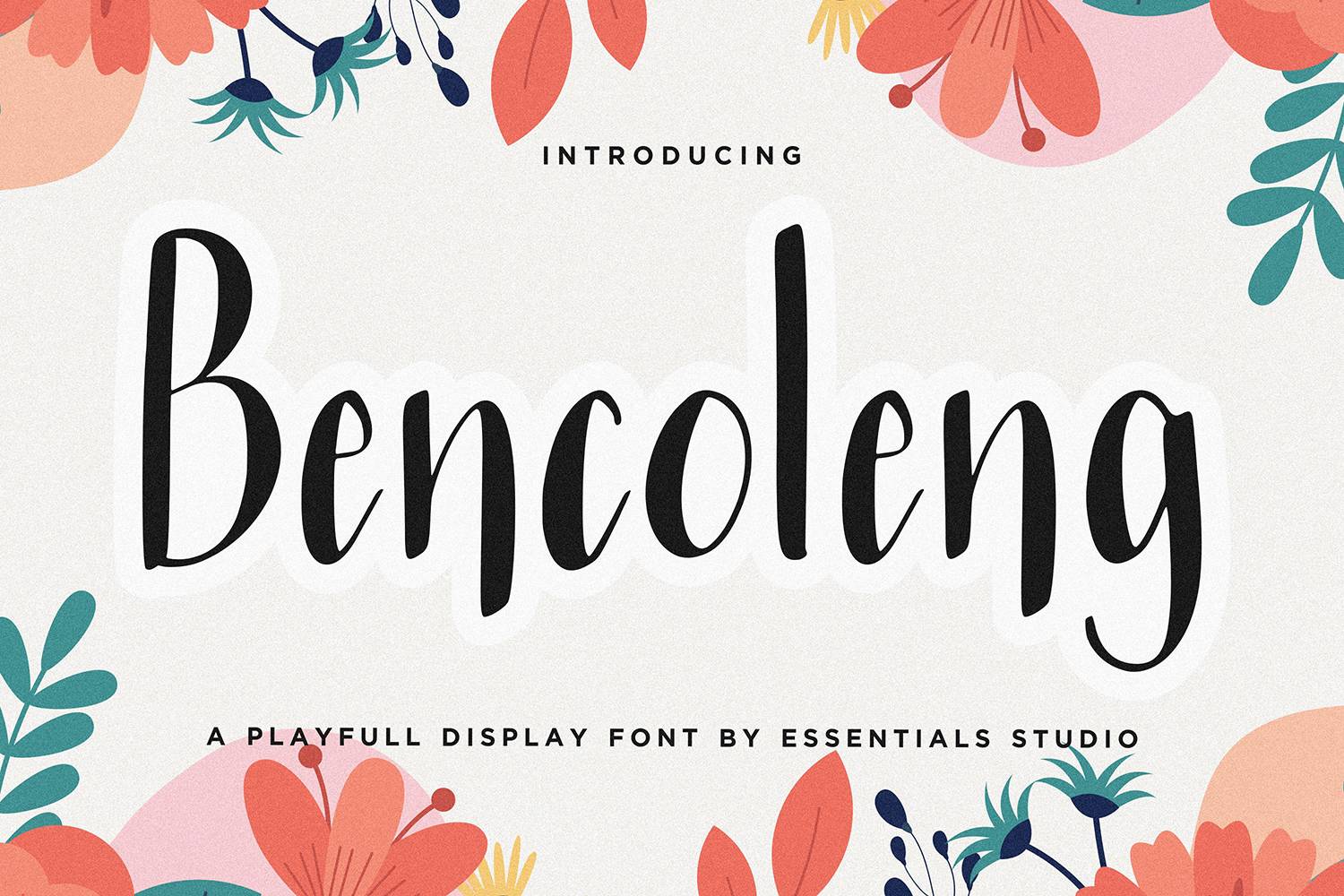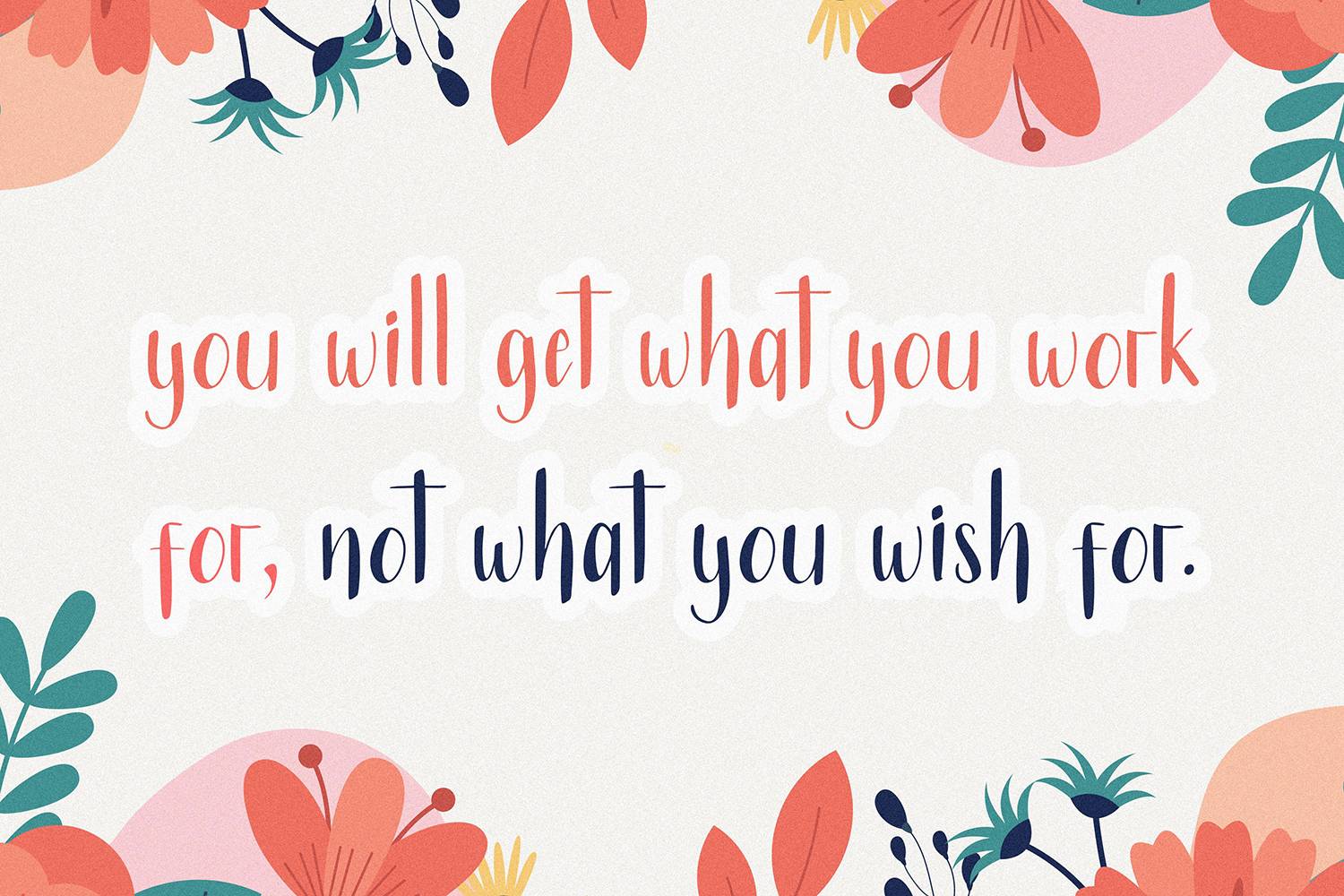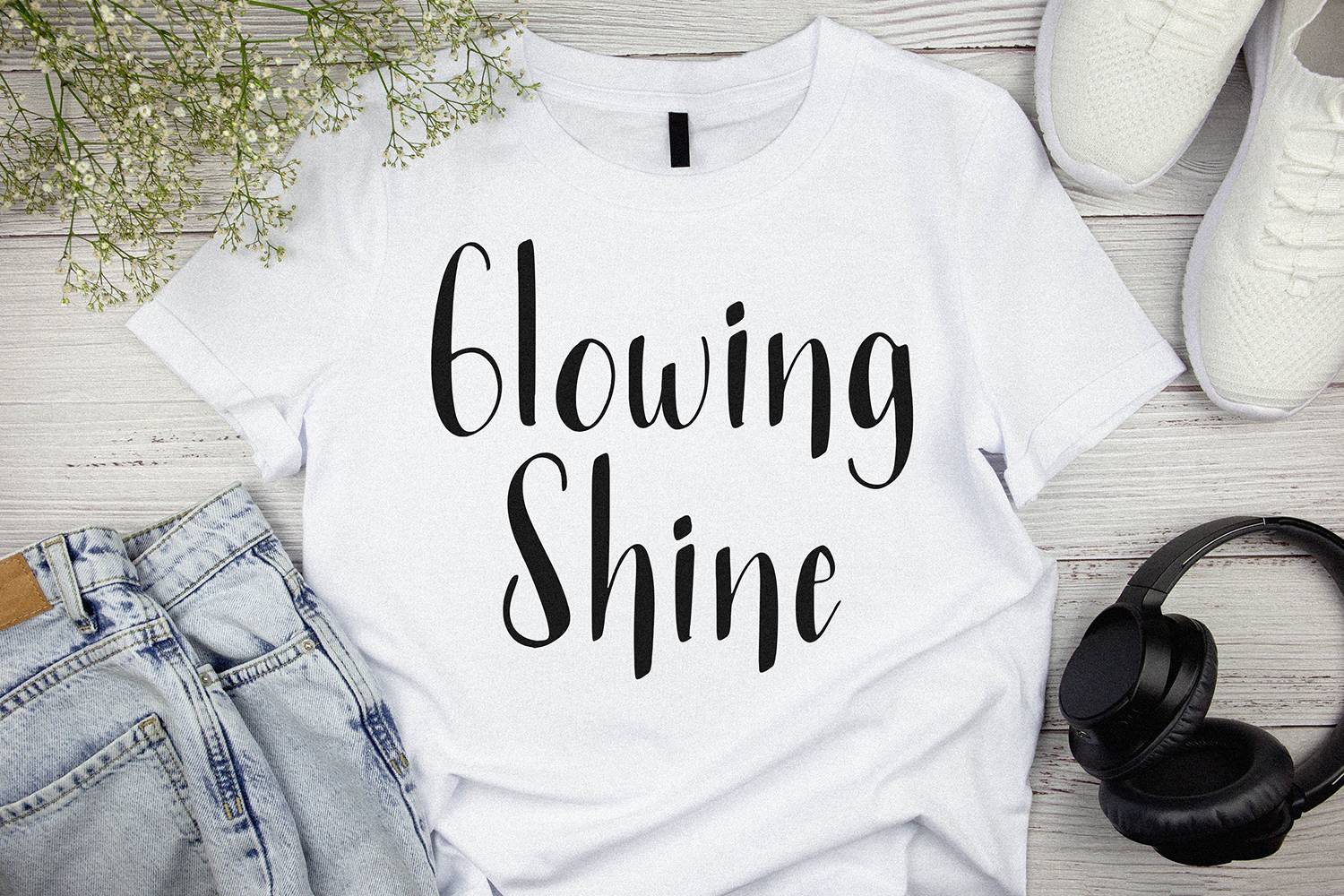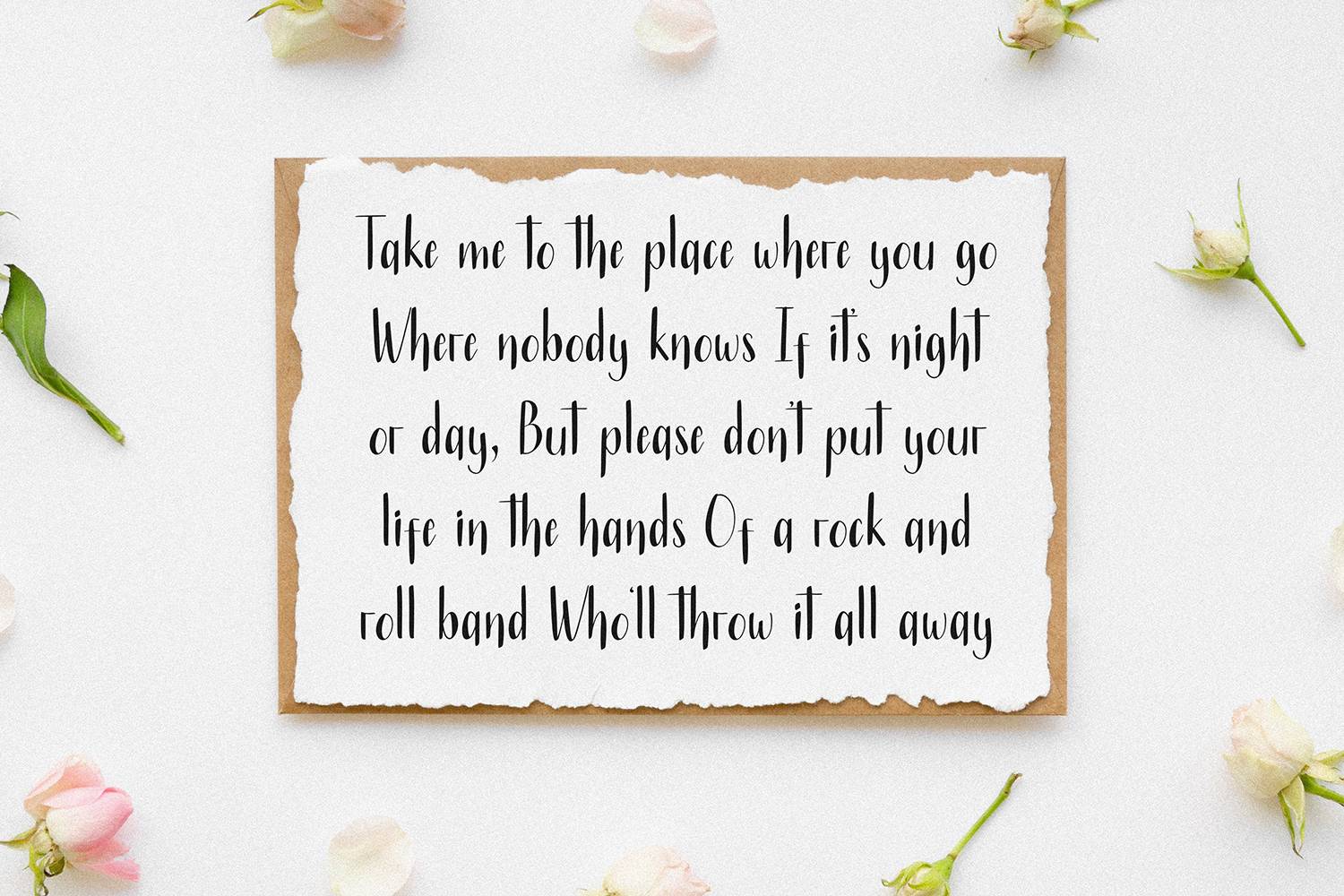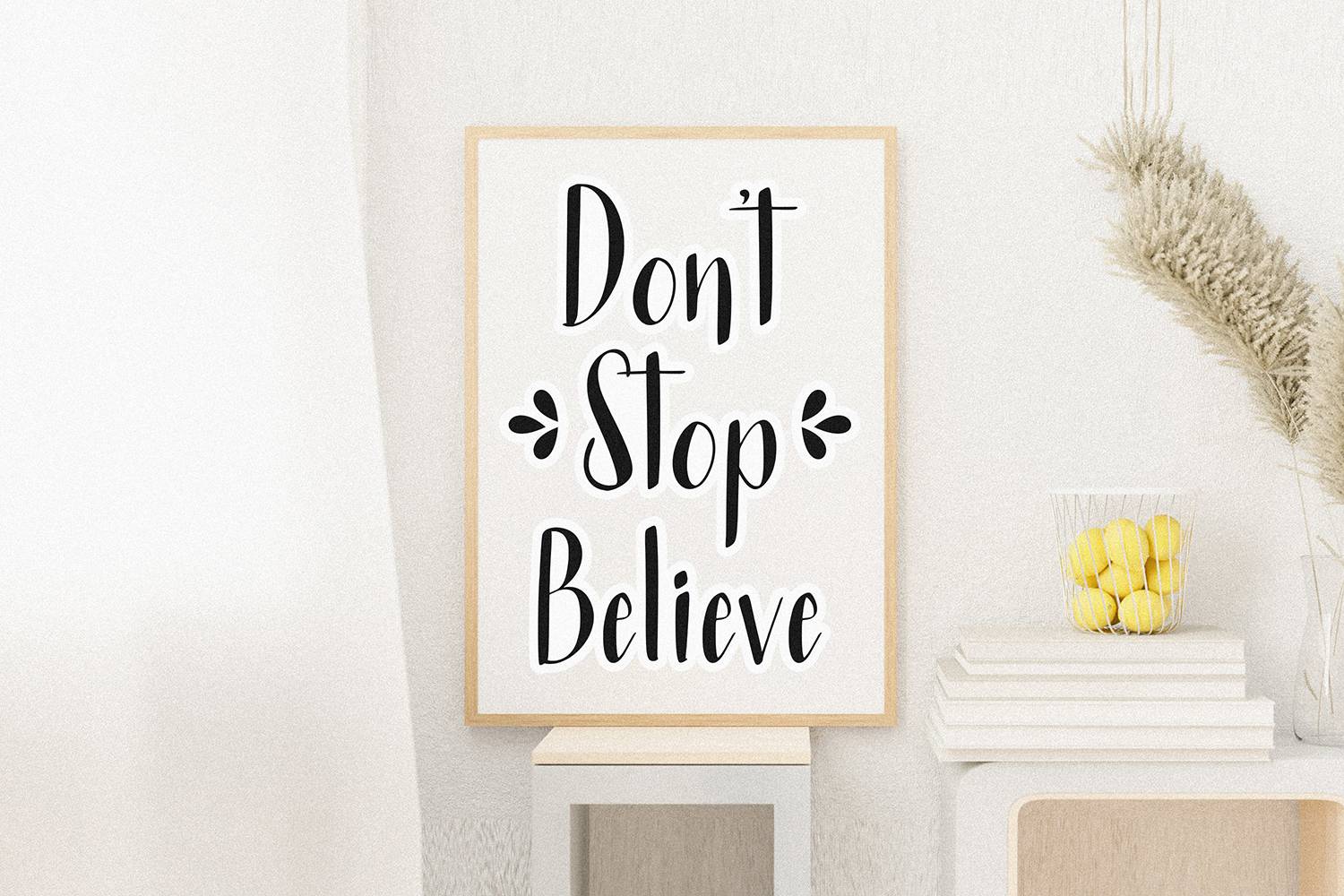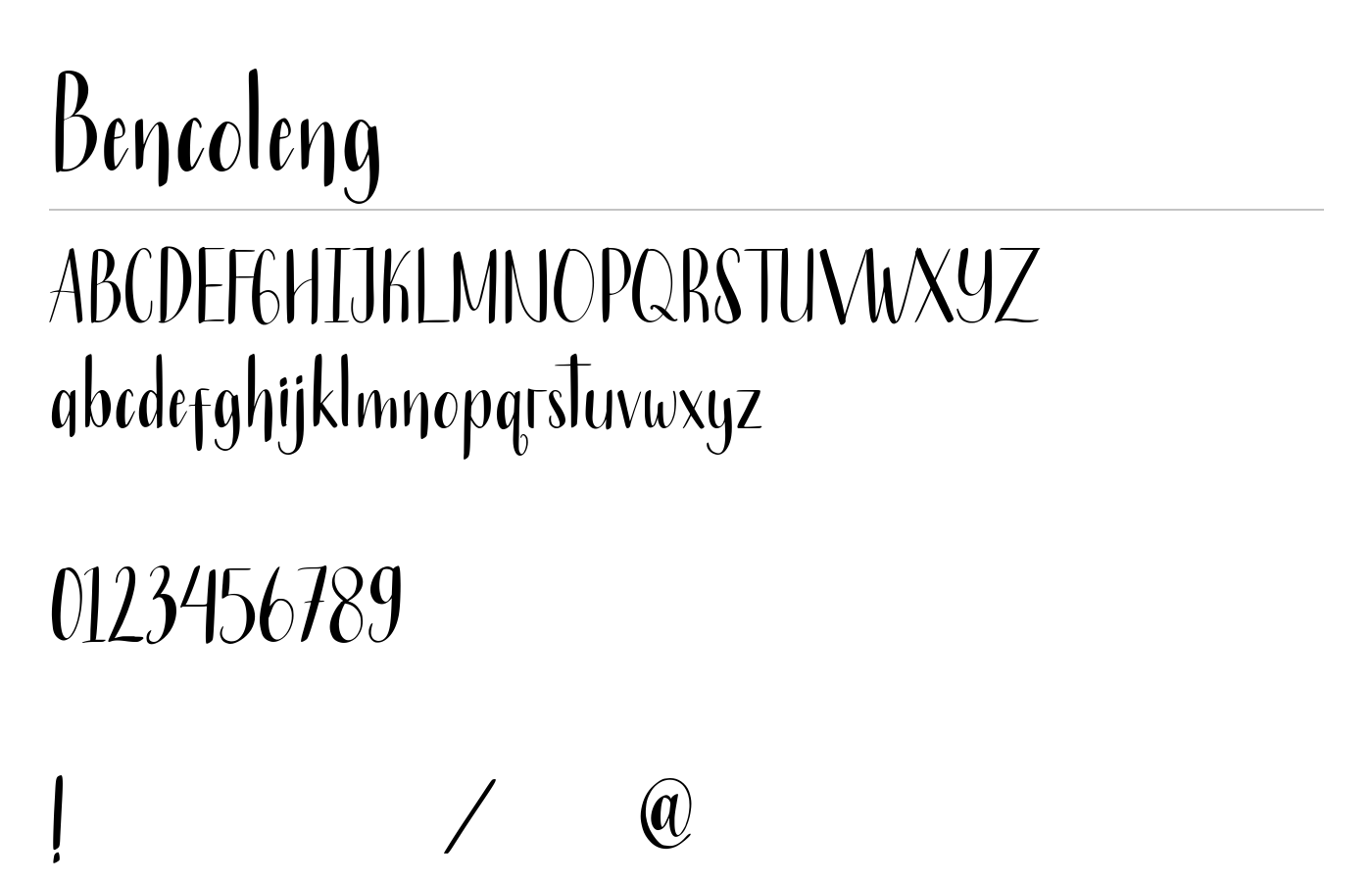
Bencoleng is a playful, tall, and thin handwritten font with a casual yet artistic vibe. Its narrow letterforms and varied stroke widths give it a dynamic and friendly personality, making it ideal for creative projects, informal branding, and eye-catching headlines. This font works well where a fun, approachable, and distinctive look is desired, such as invitations, posters, and children’s content.
Bencoleng Font
| Designer | Bagus Panji Asmoro |